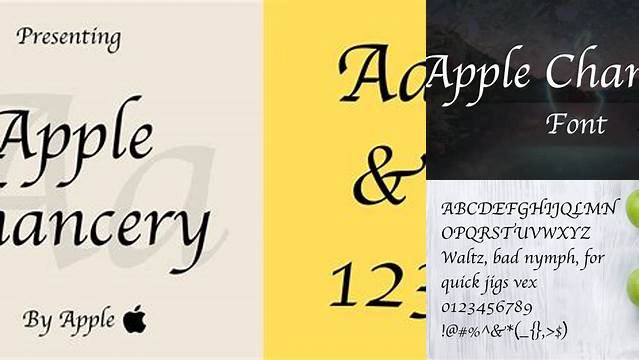
Hey there, font fanatics! Are you on the hunt for a classic, elegant typeface that whispers sophistication? Well, you've landed in the right place! Today, we're diving headfirst into the world of the Apple Chancery Regular font, and the best part? We're talking about a free download! This iconic font, known for its graceful curves and timeless appeal, is a gem for any designer, writer, or anyone who appreciates beautiful typography. So, buckle up, grab your coffee (or tea!), and let's explore everything you need to know about getting your hands on this fantastic font.
Apple Chancery Font: A Touch of Elegance
First things first, what exactly is the Apple Chancery font? Think of it as the digital embodiment of handwritten calligraphy, but with a modern twist. Designed by Susan Kare, the same brilliant mind behind the original Macintosh icons, Apple Chancery Regular boasts a charming, slightly informal style that’s perfect for a variety of projects. Its flowing strokes and gentle serifs give it a warm, inviting feel, making it a fantastic choice for anything from invitations and greeting cards to website headers and even body text (though, guys, use it sparingly for the latter!). The font's versatility is one of its strongest assets. It can be used in both formal and informal settings, adding a touch of class wherever it goes. It's a font that can transform a simple design into something truly special. The unique character of the font makes it stand out. You can use it in many different designs, whether it's for personal or commercial use, it will still look fantastic.
Apple Chancery has a history that dates back to the early days of personal computing. Susan Kare's vision was to create a font that captured the essence of handwritten notes. And she succeeded! The font's elegant appearance quickly made it a favorite. It has been used by many individuals and companies for various purposes. From the branding of products to the design of websites, Apple Chancery has been a go-to choice for those looking to add a touch of style. Its enduring popularity is a testament to its timeless design and charm. You can use the font in many ways. It will work for you, from personal projects to professional ones. In the world of design, fonts play an important role. They are the tools that allow us to communicate. Apple Chancery is an important tool in the designer's toolbox. The design of each letter is a work of art.
This font is a staple in the world of typography. It offers a unique blend of elegance and approachability. You will not be disappointed if you use the font. Whether you're a seasoned designer or just starting out, the font is a must-have in your collection. Its versatility, coupled with its aesthetic appeal, makes it an excellent choice for anyone looking to add a touch of class to their designs. Embrace the beauty of Apple Chancery Regular, and let your creative projects flourish! So, are you ready to download the Apple Chancery font and add a touch of elegance to your projects? Let's get started!
The Origins of Apple Chancery Regular: A Designer's Delight
The story of the Apple Chancery Regular font is as fascinating as the font itself! Born from the creative mind of Susan Kare, this typeface was originally designed for the Macintosh computer. Kare, the genius behind the iconic early Mac icons, understood the power of visual communication and the importance of a well-crafted font. Her goal was to create a font that was both readable and visually appealing, and Apple Chancery perfectly embodies this vision. The name itself hints at the font's inspiration. Chancery refers to a style of handwriting used in formal documents, lending the font an air of sophistication and authority. The font was an instant hit. Its elegant appearance and easy readability made it a favorite among users. And it quickly became a symbol of the Macintosh's commitment to design excellence. The Apple Chancery Regular font quickly became a staple for documents and projects. The font's success laid the groundwork for modern typography. The font also inspired designers to create more creative and visually appealing fonts. The influence of this design can still be seen in contemporary fonts. Many designers are inspired by the font and use its features in their projects.
The development of the font was meticulous. Kare carefully crafted each letter to create a cohesive and aesthetically pleasing design. The attention to detail is evident in every curve and stroke. This is a font that still resonates with designers and users alike. The font has survived over the years. Its relevance is a testament to its lasting design. So, it's no surprise that the Apple Chancery Regular font continues to be a favorite. It brings a touch of class to any project it graces. Its legacy continues to inspire designers worldwide. The font's ability to adapt to different contexts makes it a versatile design choice. The font's legacy proves the impact of excellent design. It continues to influence modern typography and design. So, as you embark on your creative journey, remember the story of the Apple Chancery Regular font and the designer behind it.
Exploring the Design Philosophy
The design philosophy behind Apple Chancery Regular is rooted in simplicity and elegance. The goal was to create a font that feels both friendly and sophisticated. Susan Kare wanted to create a font that was easy to read and visually appealing. Her design choices reflect this commitment. The font's flowing strokes and gentle serifs give it a warm, inviting feel. These subtle details set it apart from other typefaces. The designer also paid attention to legibility. She carefully crafted each letter to ensure that it was easily recognizable. This attention to detail makes it a great choice for any project. The design philosophy behind Apple Chancery Regular is a testament to the importance of user experience. The font's design is both beautiful and functional. It's a font that serves both aesthetic and practical purposes. The font's enduring appeal lies in its balance of style and practicality. So, it will continue to be a favorite among designers for years. The philosophy behind Apple Chancery Regular is to focus on elegance. This will surely be a good start for your design projects.